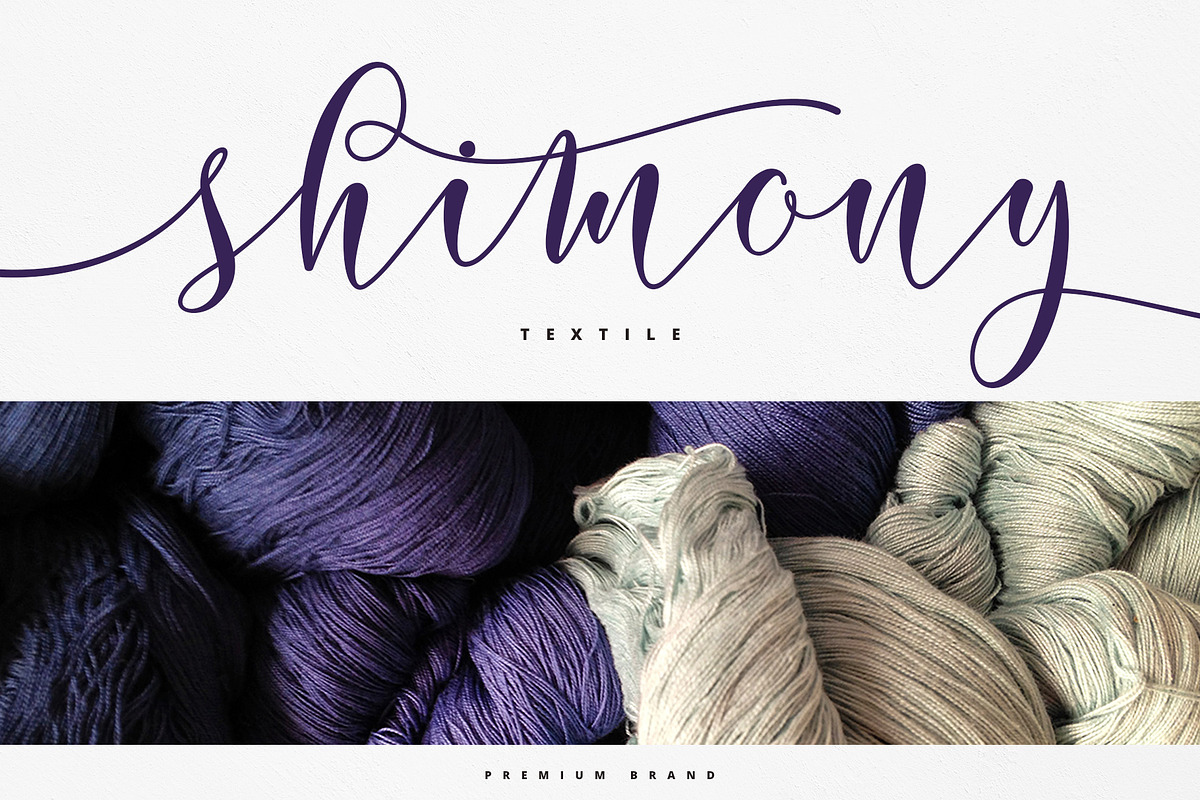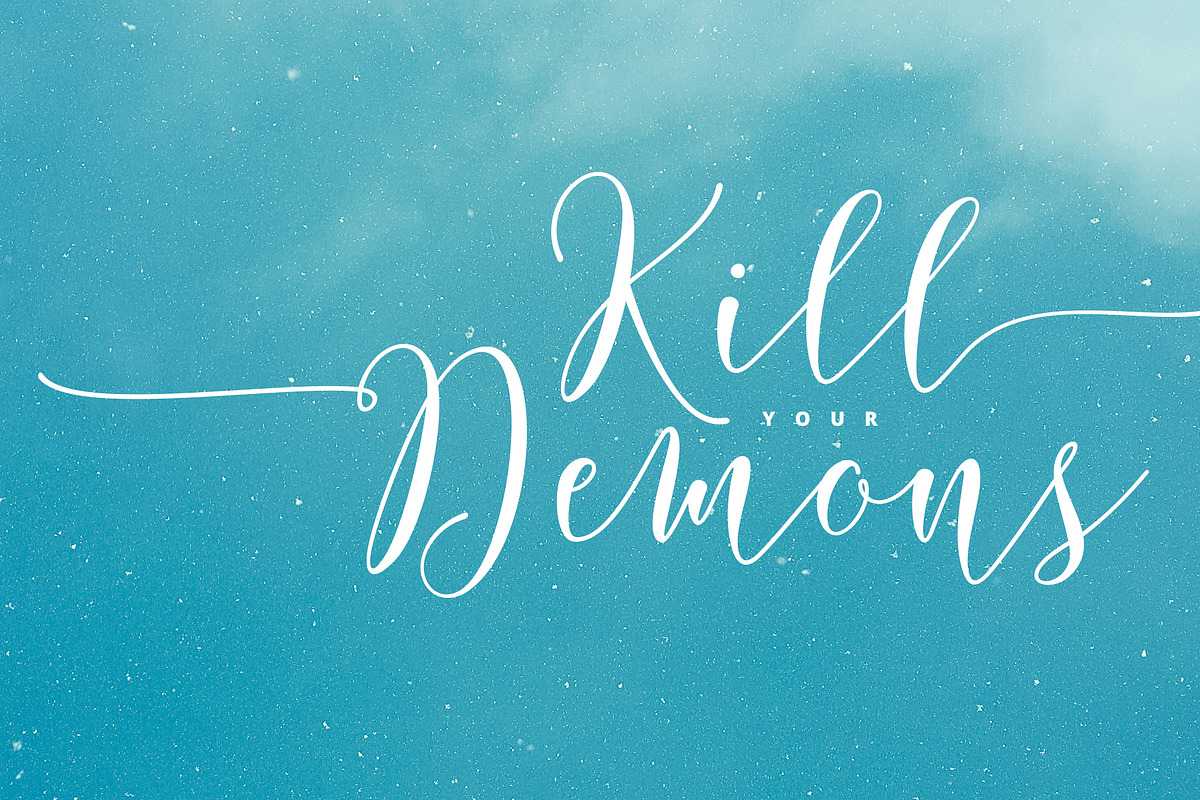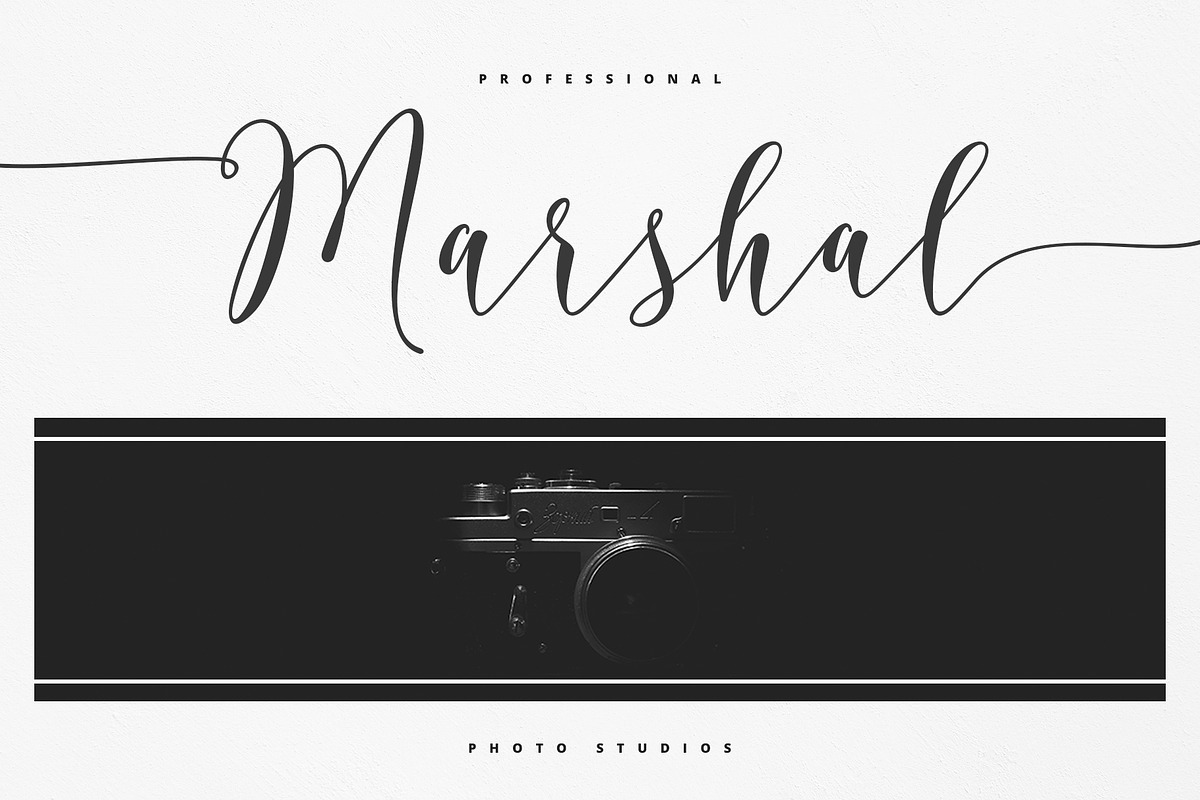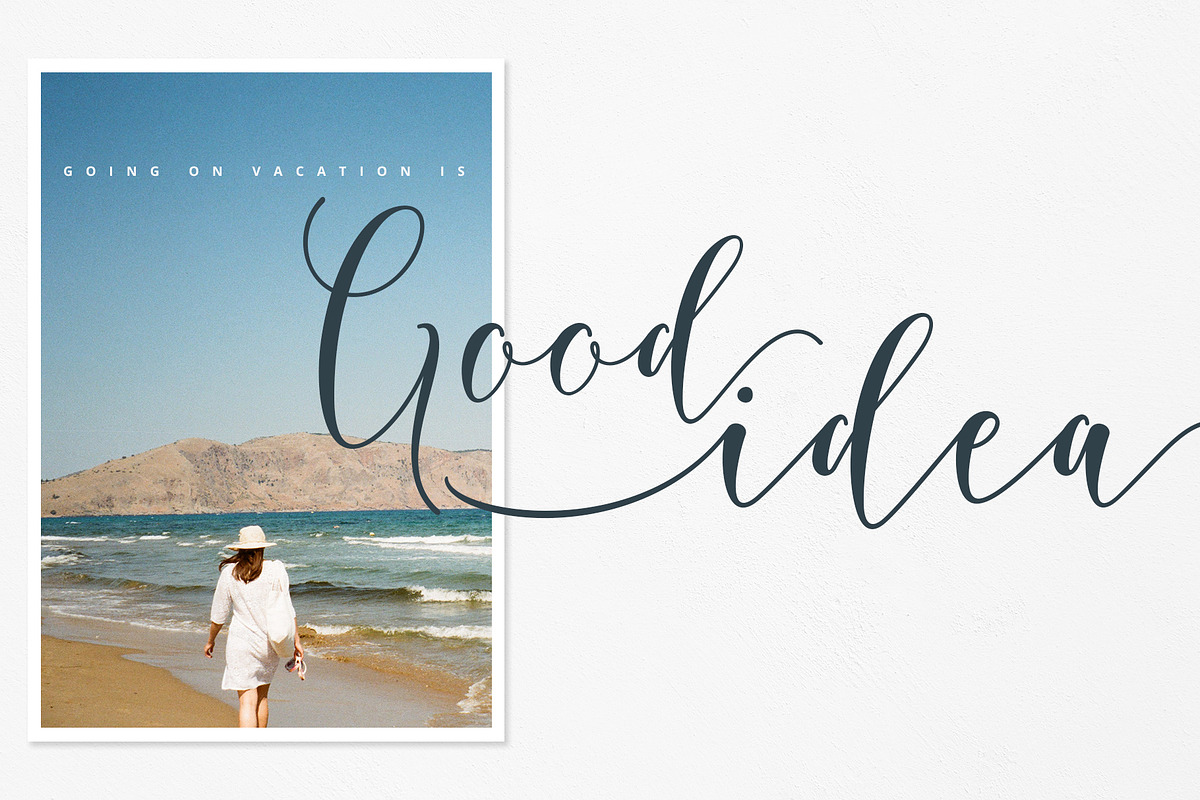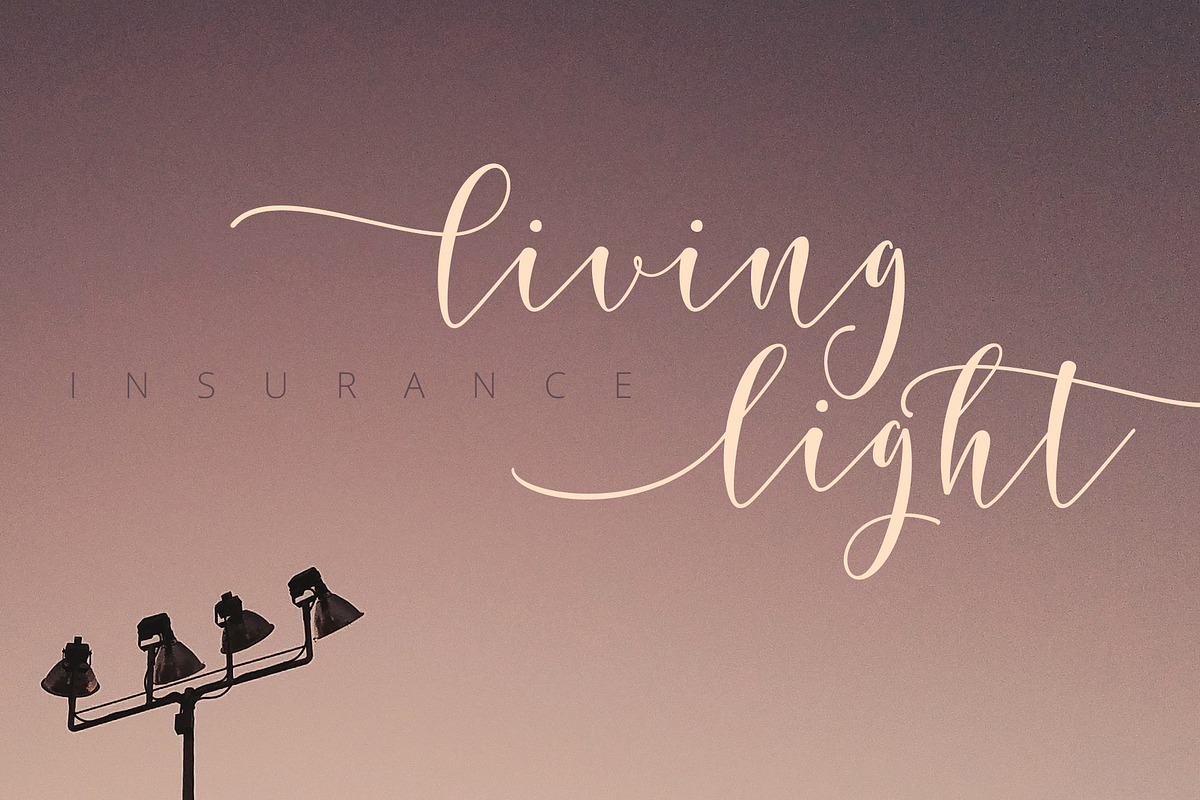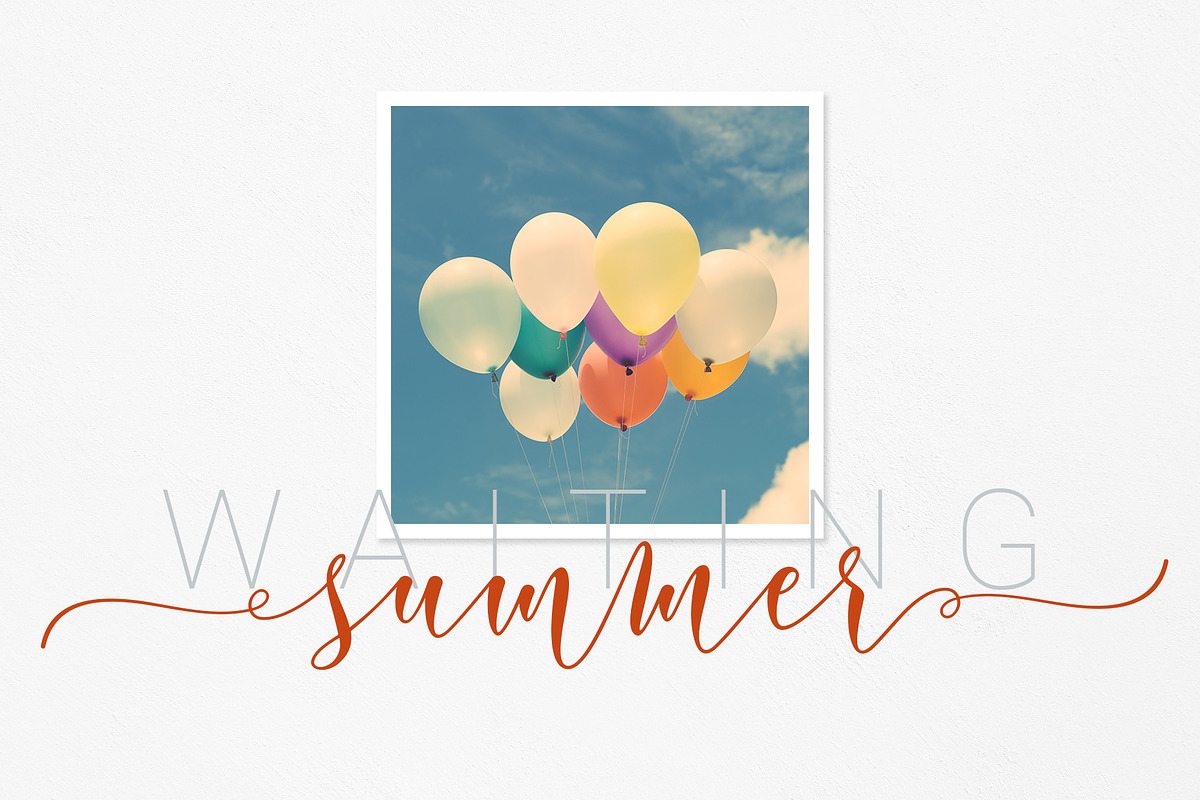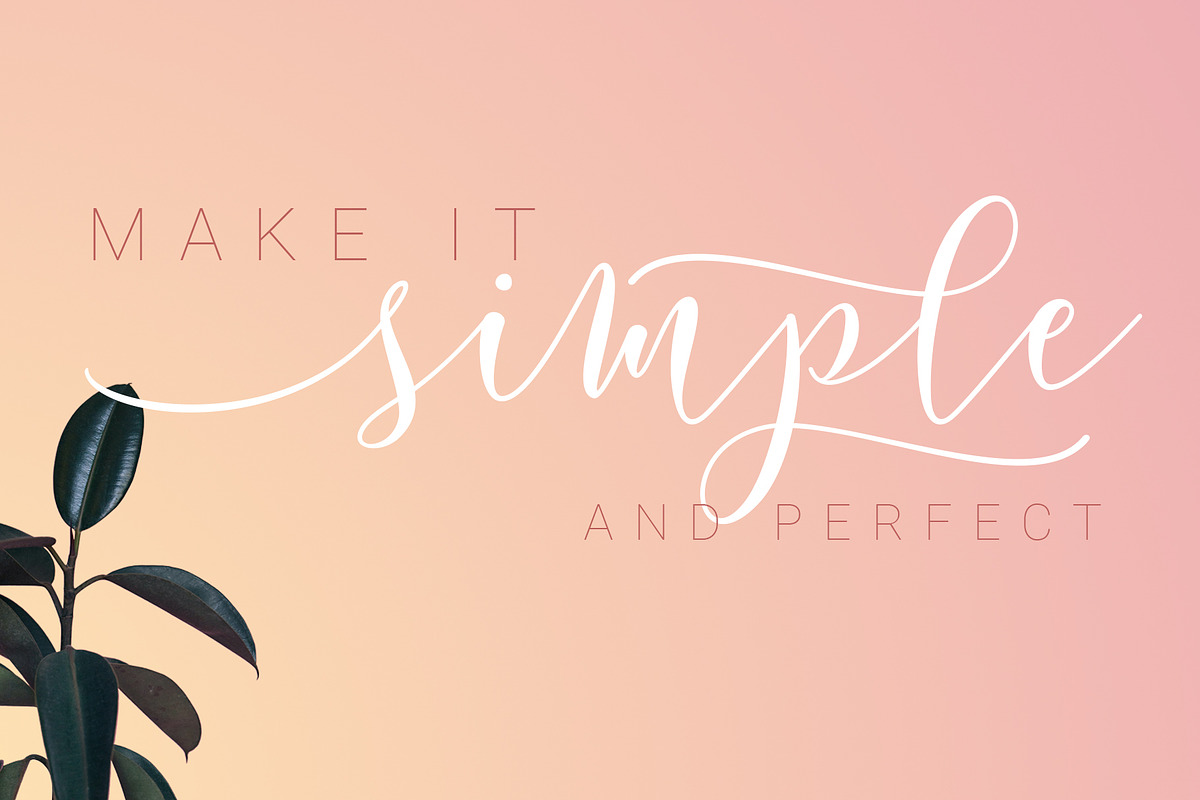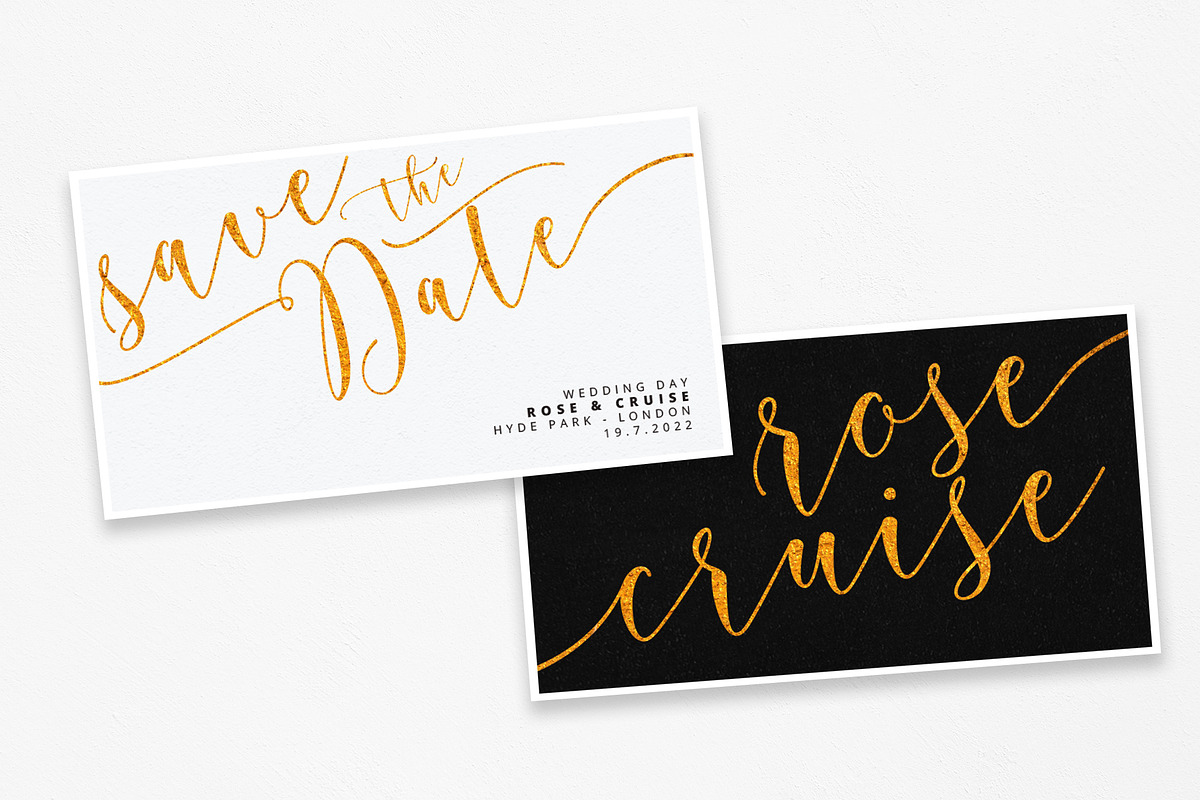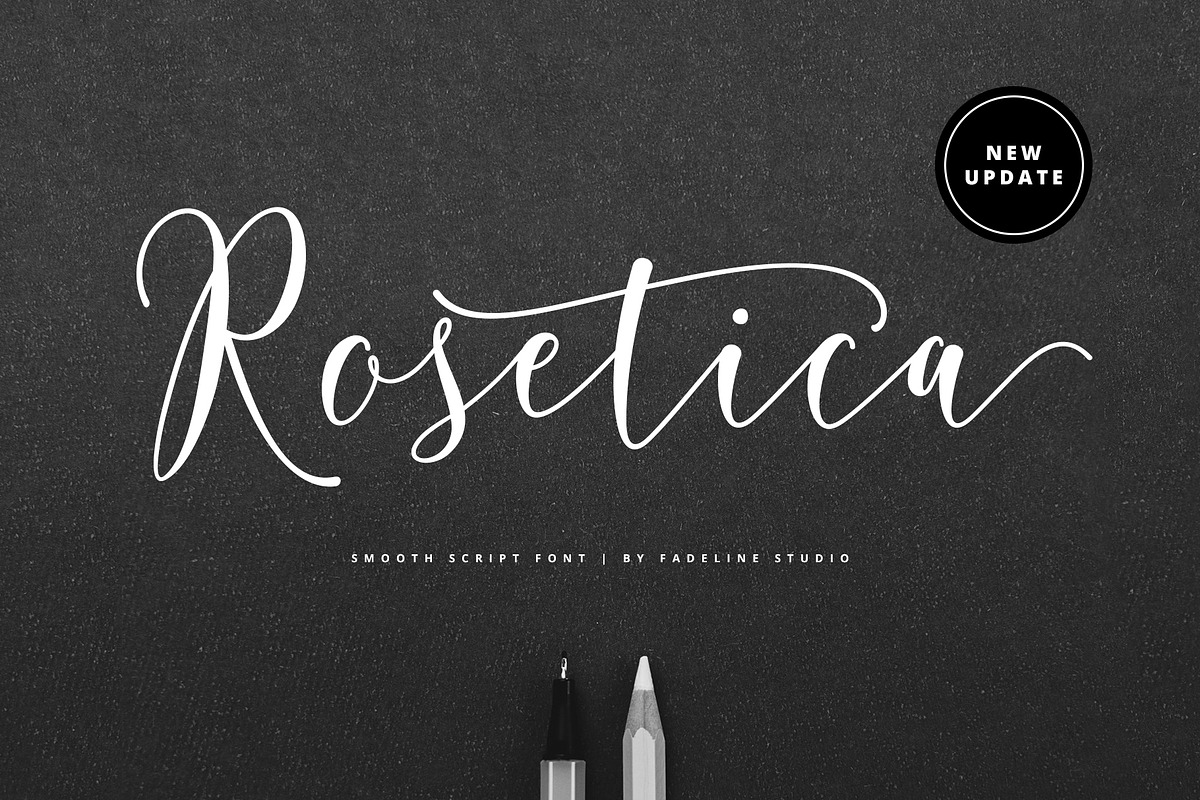
Update! Rosetica Smooth Script
Rosetica font have just been updated!
What's new? Addition of several Alternative Glyphs for lowercase letters and also some Latin Glyphs.
Rosetica Smooth Script
Hi Designer, Coming again to complete your script font collection..! This time it came with 700 glyphs. This is a smooth script font with handwriting style. This time made soft so it gives the character of handwriting very simple, real and sweet.
Rosetica is perfect for logo's, branding projects, homeware designs, product packaging, mugs, quotes, posters, shopping bags, logo's, t-shirts, book covers, name card, invitation cards, greeting cards, and all your other lovely projects.